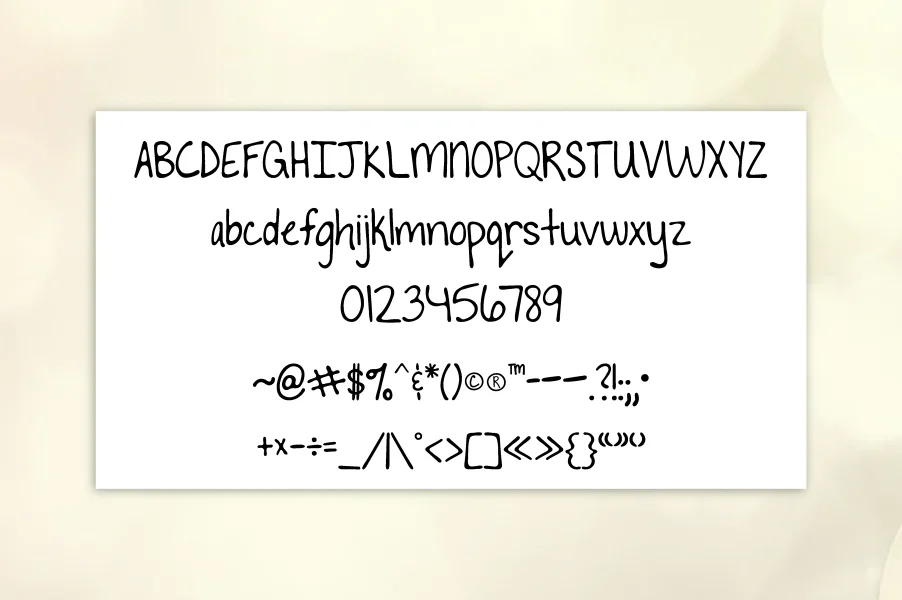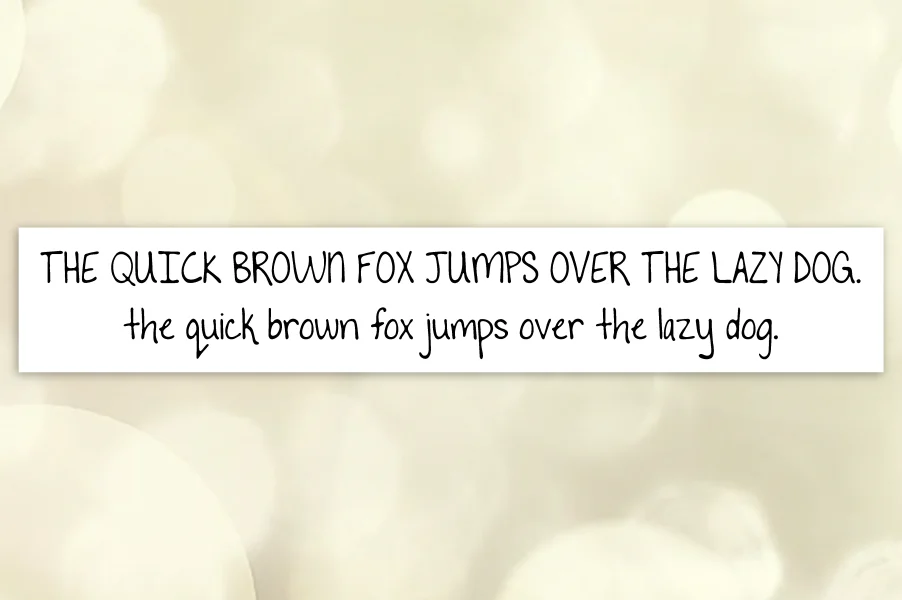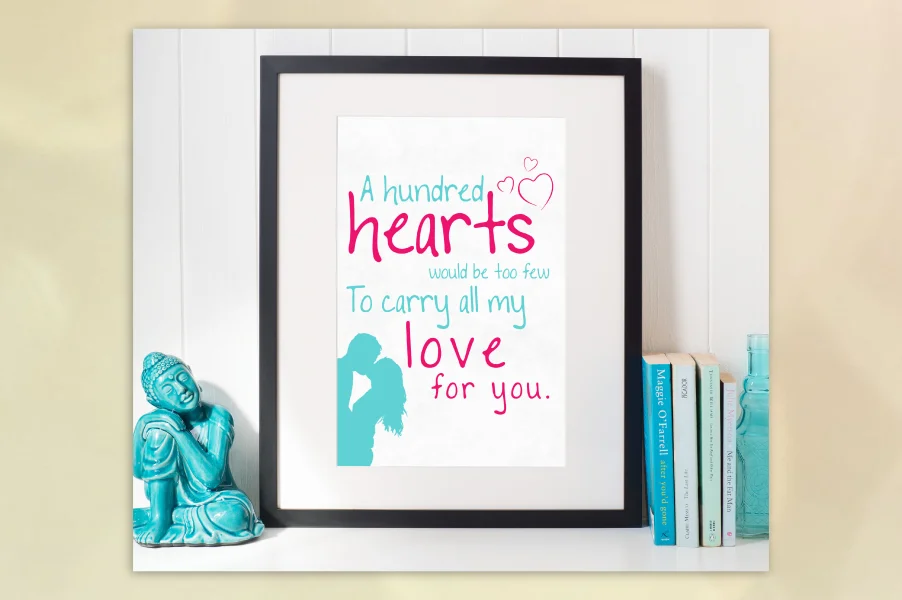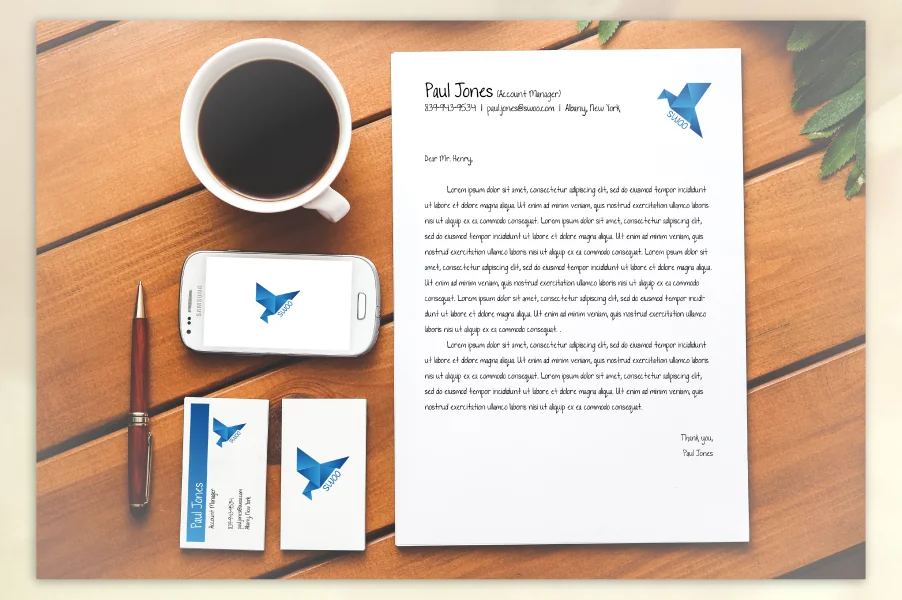
To The Point was initially created by handwritten pen and was then finalized into vector format for font usage. It is a great natural font that is not too perfect or imperfect.
This handwritten font is perfect for invitations, wall prints, home decor, branding and much more. Our Open Font License (OFL) allows crafters and designers plenty of freedom for creativity.